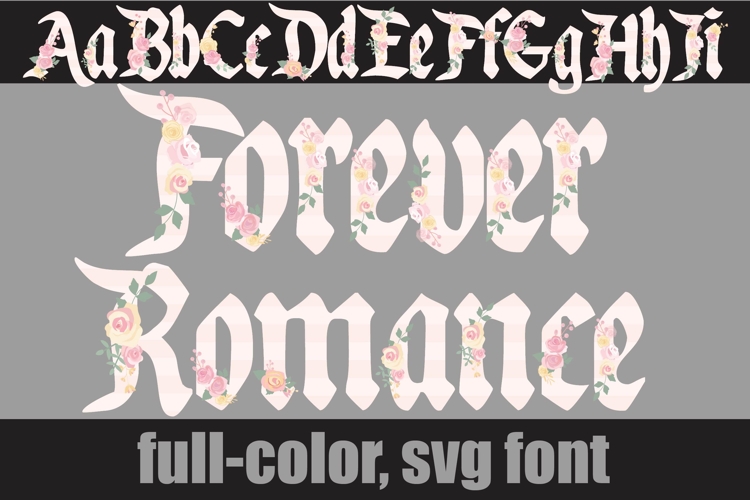
Forever Romance Color Font
This full-color, blackletter font sports pale florals on stripes. There is an alt case of additional colors of each letter that you can access through your system's character map.